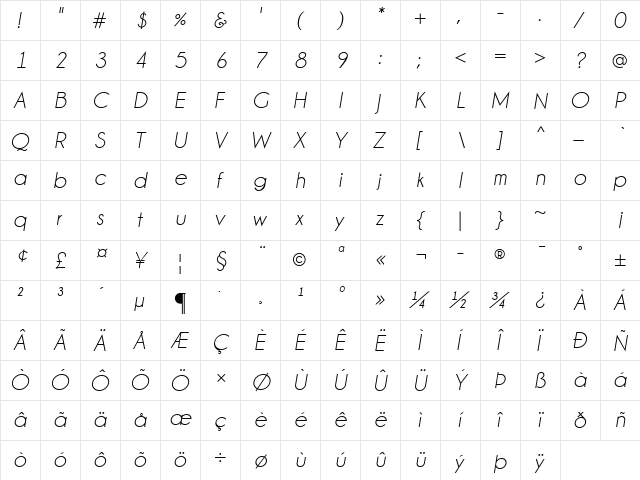
Champagne & Limousines Italic
Design Context for Champagne & Limousines Typeface
Champagne & Limousines takes a measured approach to typography — its balanced proportions and neutral character make it a reliable workhorse for both digital and print work. The dynamic lean of this cut emphasises speed and emphasis in any layout.
Pro Tip: Use Champagne & Limousines for emphasis, pull quotes, and subheadings where its slanted energy can add rhythm to the layout.